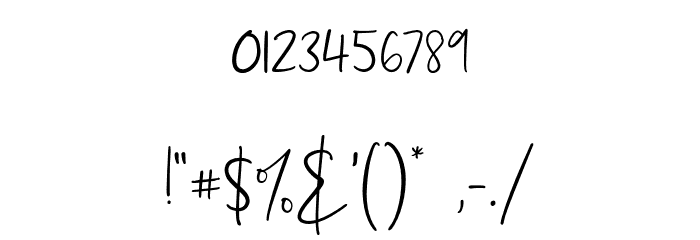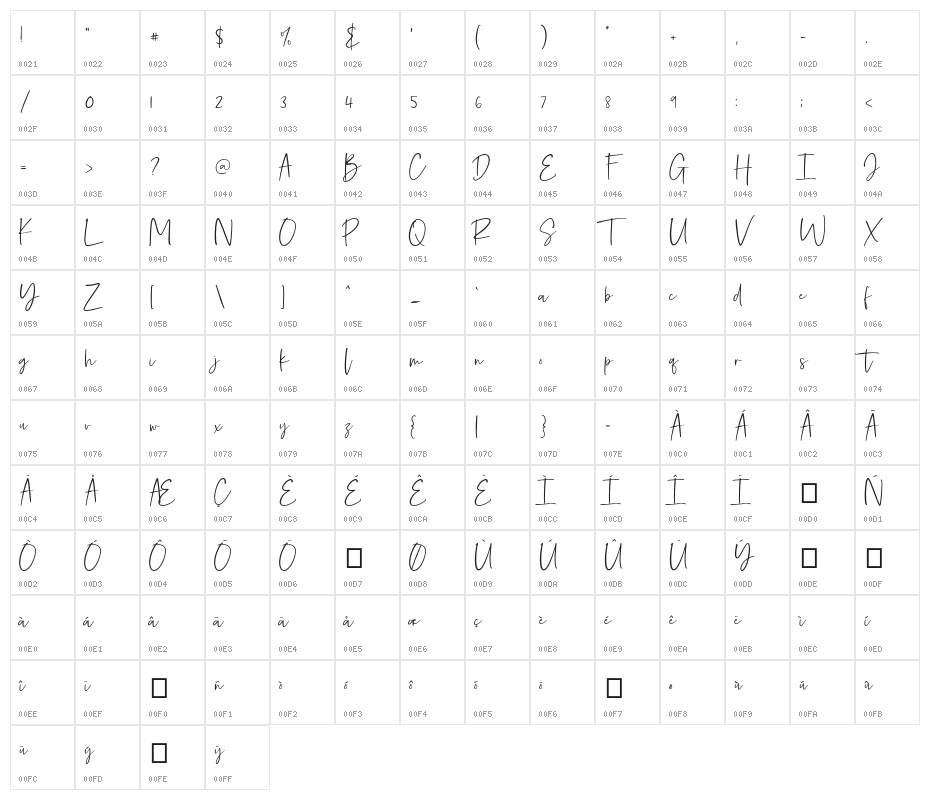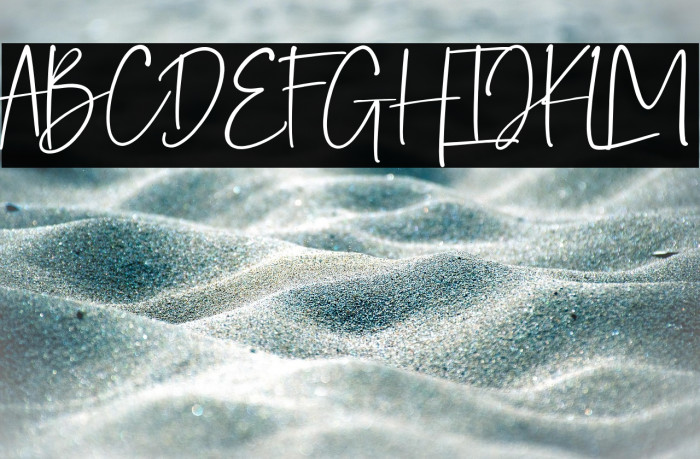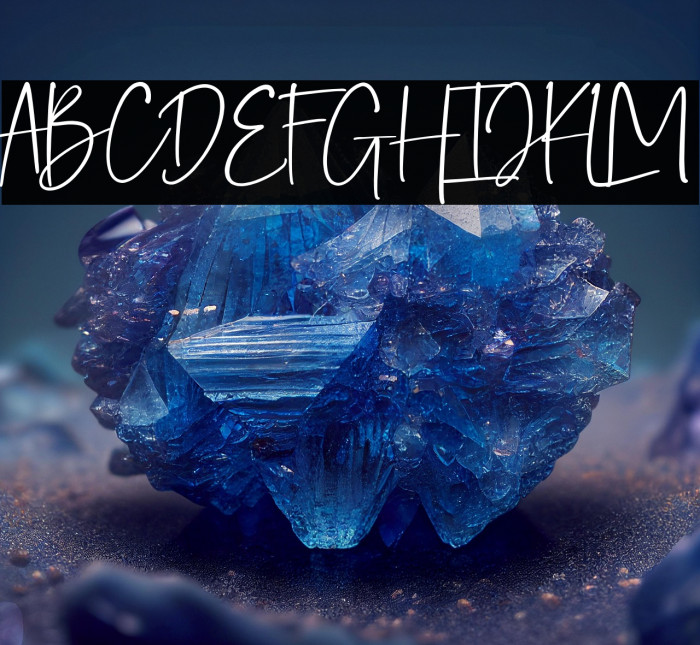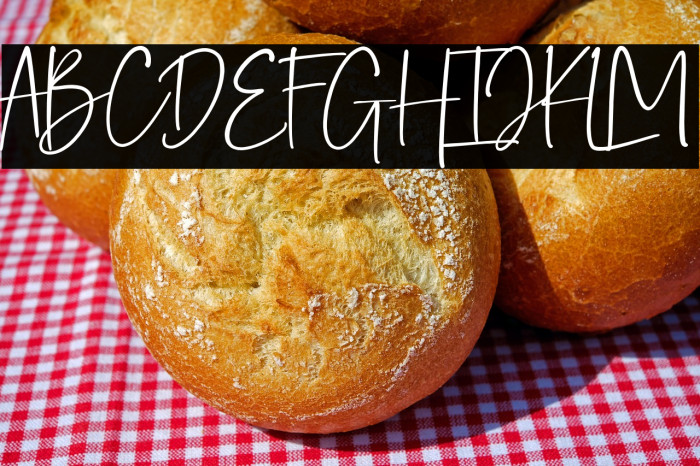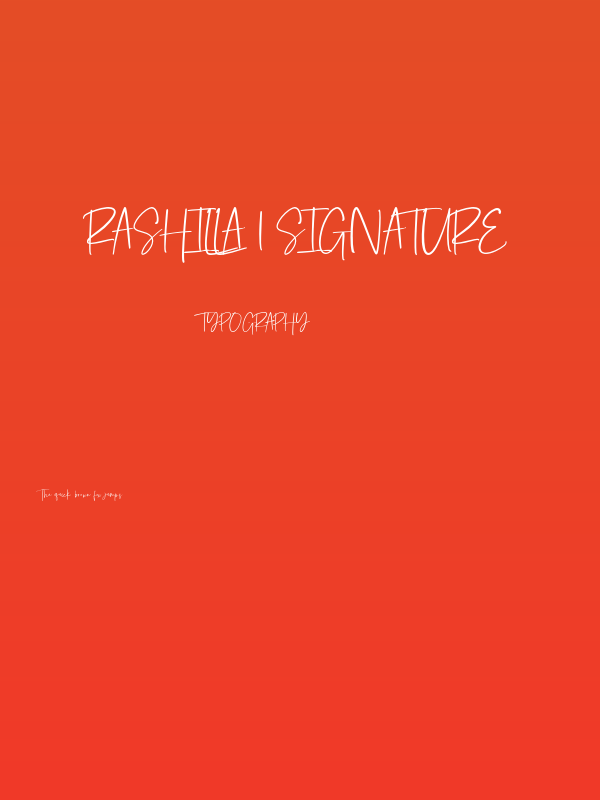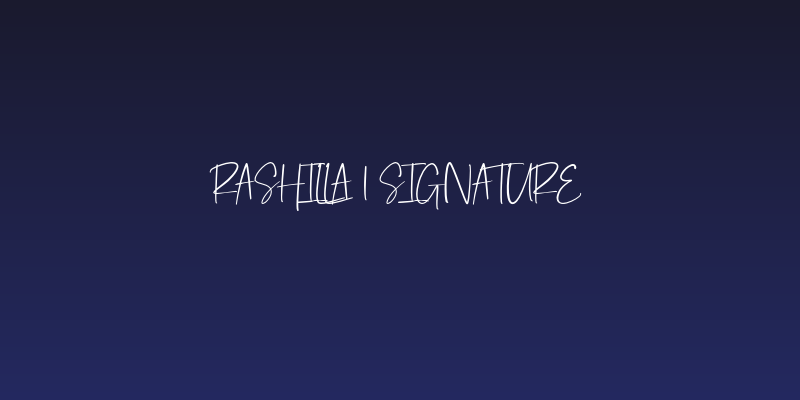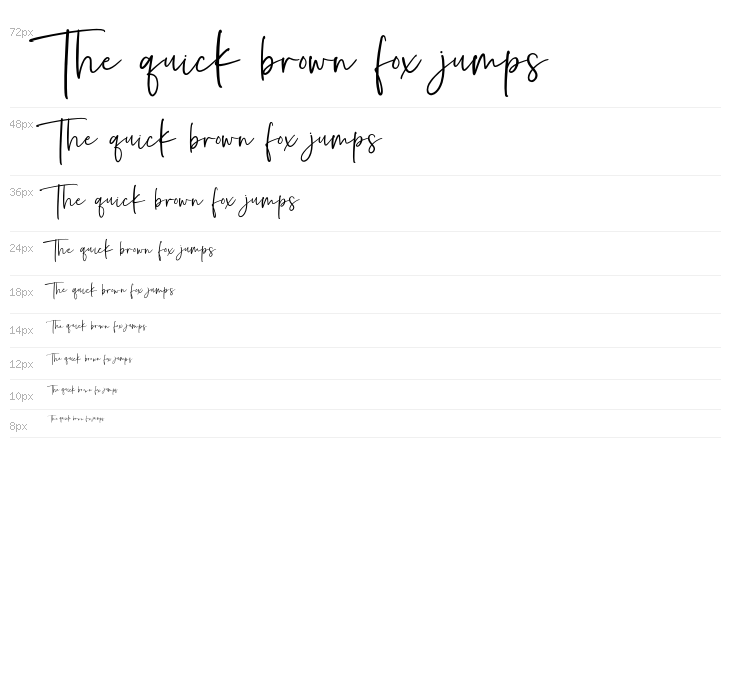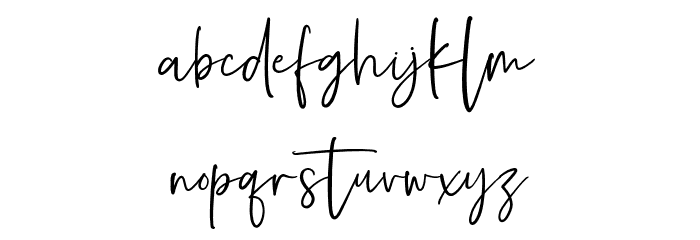
Rashilla | Signature Font
Rashilla | Signature Description
This font exudes a casual, handwritten style with an elegant and flowing script. The characters are crafted with a natural, organic feel, featuring smooth curves and varying stroke widths that mimic the fluidity of real handwriting. The uppercase letters are tall and slightly narrow, while the lowercase letters maintain a consistent baseline with occasional playful loops and swashes. The numbers are clear and legible, complementing the overall aesthetic. Special characters are thoughtfully designed to match the font's style, making it versatile for various uses.